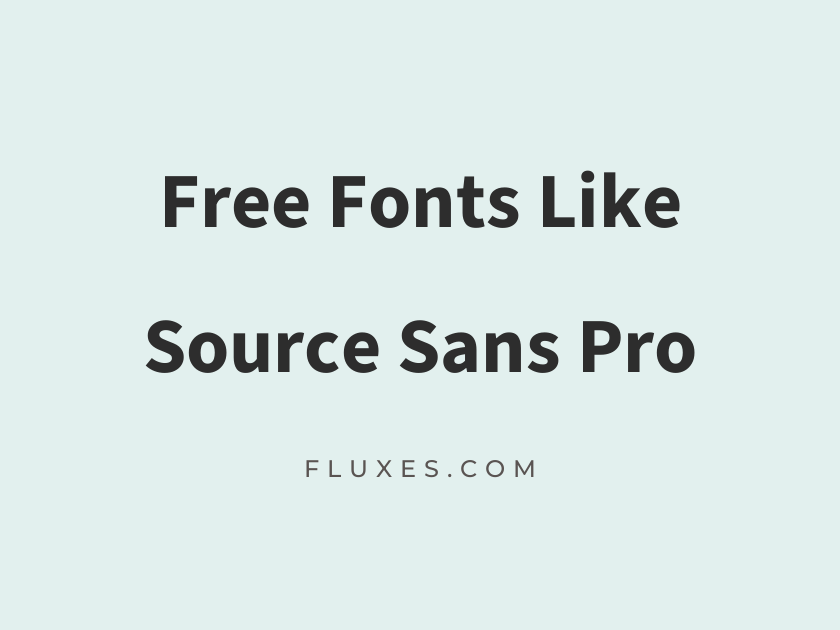
16 Best Free Fonts Similar to Source Sans Pro
Source Sans Pro earned its place in countless interfaces and editorial layouts because it does something deceptively hard: it stays out of the way. Adobe built it as a workhorse humanist sans, with open counters, a generous x-height, and just enough warmth to keep long passages of text from feeling sterile. If you are hunting for free fonts similar to Source Sans Pro, the goal is usually the same clarity and restraint, paired with the same versatility across web, print, and product design. The alternatives below share that humanist backbone, whether you need a Google Fonts version of Source Sans Pro itself, a UI-friendly substitute, or something with a bit more personality for headlines.
1. Source Sans 3
Clean, legible type for interfaces and long reports
This is the actual continuation of the Source Sans story, updated by Adobe and hosted on Google Fonts under a new version number. If you specifically want Source Sans Pro but need it through Google Fonts, this is the closest thing to the original, sharing its proportions, spacing, and even temperament almost exactly.
2. Open Sans
Friendly, readable text for websites and apps
Open Sans is the font most people mentally reach for when they think “generic Google Fonts sans,” and that ubiquity is earned. It shares Source Sans Pro’s neutral, slightly rounded humanist structure, making it an easy drop-in replacement for body copy, forms, and dashboards where legibility matters more than flair.
3. PT Sans
Practical type for signage and interface labels
Designed in Russia for wide multilingual use, PT Sans carries a similar workmanlike honesty to Source Sans Pro but with slightly more compressed, upright letterforms. It holds up well in small interface labels and captions, though at display sizes it reads a touch plainer than some of its peers.
4. Noto Sans
Consistent text across languages and platforms
Noto Sans exists to solve a problem Source Sans Pro was never asked to solve at this scale: rendering consistently across dozens of writing systems. For projects that need that same neutral, functional voice but with far broader language coverage, Noto Sans is the practical choice, and it pairs naturally with Noto’s other scripts if your content goes multilingual.
5. IBM Plex Sans
Technical documentation and product interface copy
Commissioned by IBM as a corporate typeface, Plex Sans has a slightly more geometric, engineered feel than Source Sans Pro, with subtle quirks in the lowercase a and t that give it character under scrutiny. It suits technical documentation, developer tools, and dashboards, anywhere a brand wants Source Sans Pro’s clarity with a hint more identity.
6. Public Sans
Government and civic websites need clear type
Built by the U.S. government’s design system team specifically as an open, neutral workhorse for public-facing services, Public Sans is about as close as you can get to Source Sans Pro’s original mission statement. It was engineered for accessibility and cross-platform consistency first, aesthetics second, which makes it a smart pick for civic, legal, or institutional sites.
7. Fira Sans
Warm, humanist type for editorial storytelling
Fira Sans
Fira Sans brings a touch more warmth and personality than Source Sans Pro, with slightly more varied stroke contrast and a wider range of weights. It was originally designed for Mozilla’s Firefox OS, so it was built from the start to perform well on screens at small sizes.
8. Work Sans
Optimized text for on-screen reading at small sizes
Work Sans was tuned specifically for screen legibility at text sizes, which puts it in direct competition with Source Sans Pro’s core strength. Its slightly wider apertures and generous spacing make it forgiving in dense UI copy, and its lighter weights work nicely for elegant, minimal headlines too.
9. Archivo
Bold, versatile type for modern brand systems
Archivo trades some of Source Sans Pro’s softness for a more grotesque, no-nonsense structure, making it feel a bit more contemporary and confident in headlines. It comes in an unusually wide range of widths and weights, so it flexes from compact UI labels to bold display type without losing coherence.
10. Karla
Understated type with quirky, friendly details
Karla looks restrained at a glance, but closer inspection reveals small idiosyncrasies in its curves that give it more warmth than Source Sans Pro. It reads especially well in interface copy and short-form web content, though its personality gets a little more noticeable at larger display sizes.
11. Mulish
Minimal sans for clean, modern interfaces
Mulish is stripped-down and unfussy, closer to a low-contrast, minimalist cousin of Source Sans Pro than a direct twin. It is a solid choice when a project wants something even quieter and more neutral, particularly in product UI where the type should never compete with the content.
12. Barlow
Engineered clarity for dashboards and signage
Watch x-height and letter spacing when substituting one of these for Source Sans Pro in an existing layout. Small differences in width can shift line breaks and require a quick pass through your design system’s spacing tokens.
Any of these families will get you free, well-supported alternatives to Source Sans Pro without sacrificing the clarity that made it a default in the first place. Download a few, test them at your actual production sizes, and let the one with the best rhythm in your body copy win.